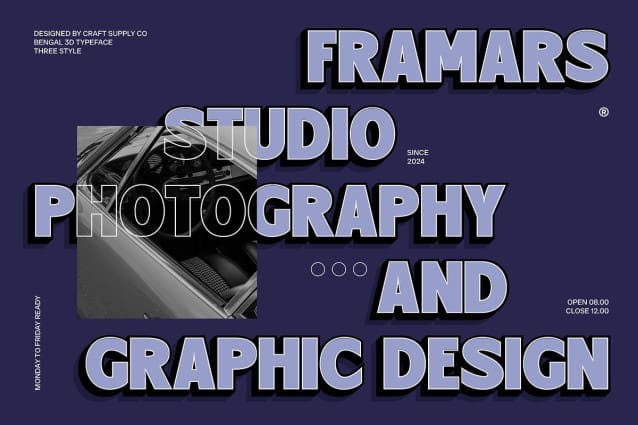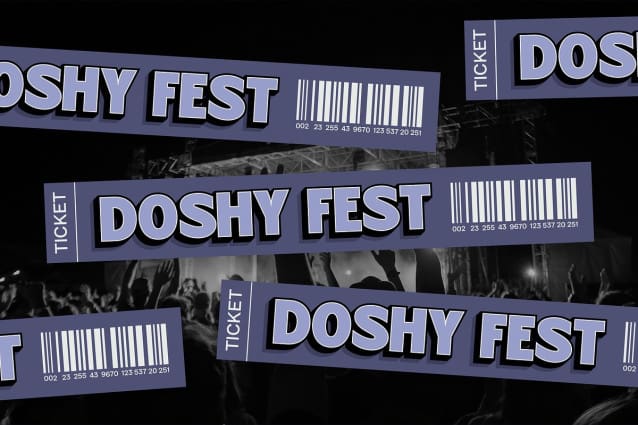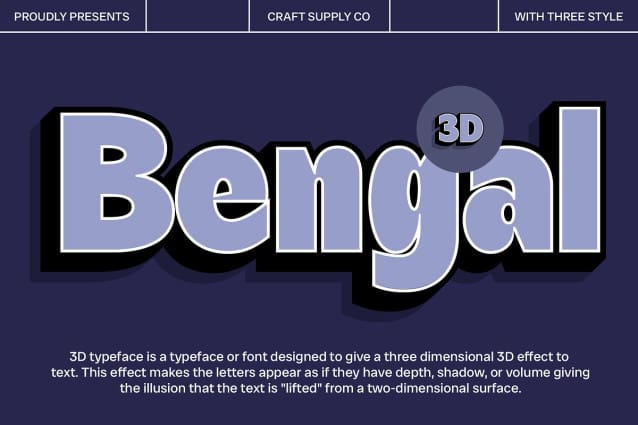
Bengal 3D Font
Bengal 3D Font is a bold sans-serif typeface that fuses a retro aesthetic with a captivating three-dimensional effect. The font’s strong, characterful letters make a bold statement, while its vintage-inspired design brings a nostalgic touch to contemporary visuals. The 3D effect adds significant depth and dimension, allowing the text to stand out prominently on any medium.
Enhanced Depth and Visual Impact The three-dimensional feature of Bengal 3D provides a sense of depth that makes the text appear to leap off the page. This dynamic quality is perfect for creating engaging and impactful designs. Whether used in high-energy promotional materials or retro-themed branding, the bold form and dimensional quality ensure that the text captures attention and leaves a lasting impression.
Ideal for Striking Posters and Unique Branding Bengal 3D is ideally suited for a wide range of applications that demand a strong visual presence. From posters and logos to promotional materials, this font’s bold, retro look combined with its 3D depth makes it a versatile choice for projects aiming to deliver a memorable, eye-catching aesthetic. Its unique blend of retro style and modern dimensionality makes Bengal 3D an excellent choice for adding a distinctive, creative flair to any design.